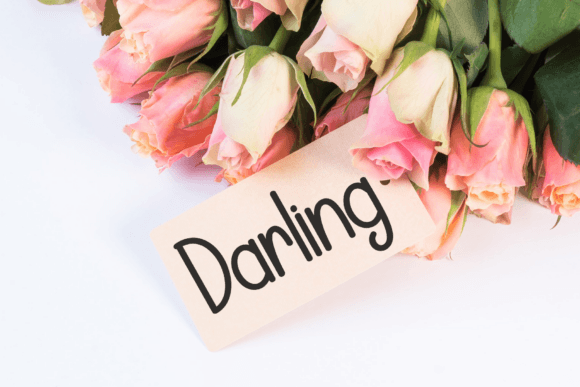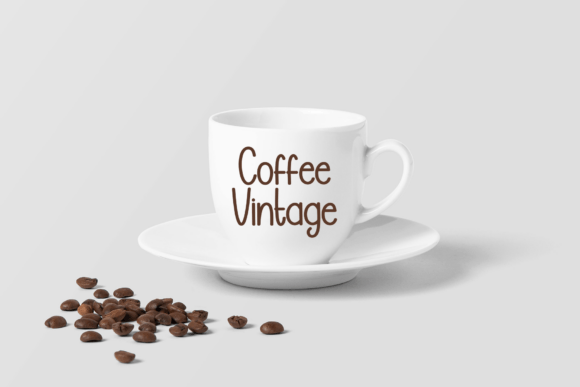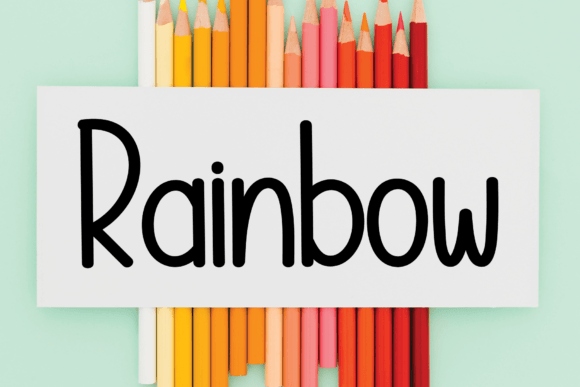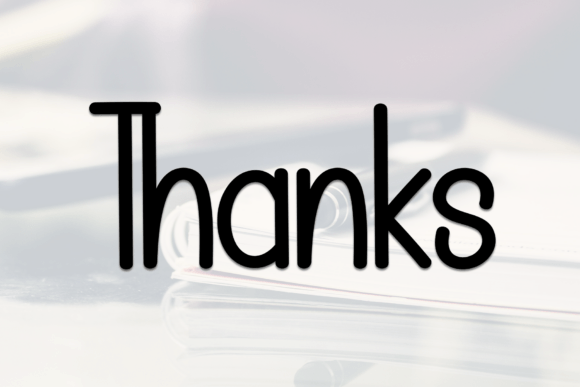
The Ultimate Guide to Book Notes Font: Elevate Your Designs with a Relaxed yet Luxurious Touch
I’ll never forget the time I was working on a branding project for a fashion client, and I was struggling to find the perfect font to capture their laid-back yet high-end vibe. That’s when I stumbled upon Book Notes, a handwritten font that looked like it was drawn with a marker. It was love at first sight! ✨ In this article, I’ll share my experience with Book Notes, its features, and how to make the most of it in your designs.
An Honest Review of Book Notes Font
What I Love About Book Notes
• ✨ Relaxed and sporty feel that’s perfect for fashion, lifestyle, and wedding designs
• ✅ Elegant yet casual, making it suitable for a wide range of applications
• 💕 Handwritten with a marker-like quality that adds a personal touch
• 🎨 Versatile and works well in various design contexts, from logos to marketing materials
While Book Notes is an amazing font, there are a few things to keep in mind: 🤔
• ⚠️ Some characters may appear a bit inconsistent due to its handwritten nature
• ⚠️ May not be the best choice for very small font sizes or body text
The Story Behind Book Notes Font
Book Notes was designed with the intention of creating a font that felt both elegant and casual. The designer wanted to capture the essence of handwritten notes, with all their imperfections and quirks, and turn them into a digital font. The result is a font that’s perfect for designs that need a touch of sophistication and whimsy.
Q: What type of designs is Book Notes best suited for?
A: Book Notes is perfect for branding, logos, wedding supplies, greeting cards, fashion, lookbooks, marketing promotions, and more.
Q: Is Book Notes a script font?
A: While Book Notes has a handwritten quality, it’s not a traditional script font. It’s more of a marker-drawn font with a relaxed feel.